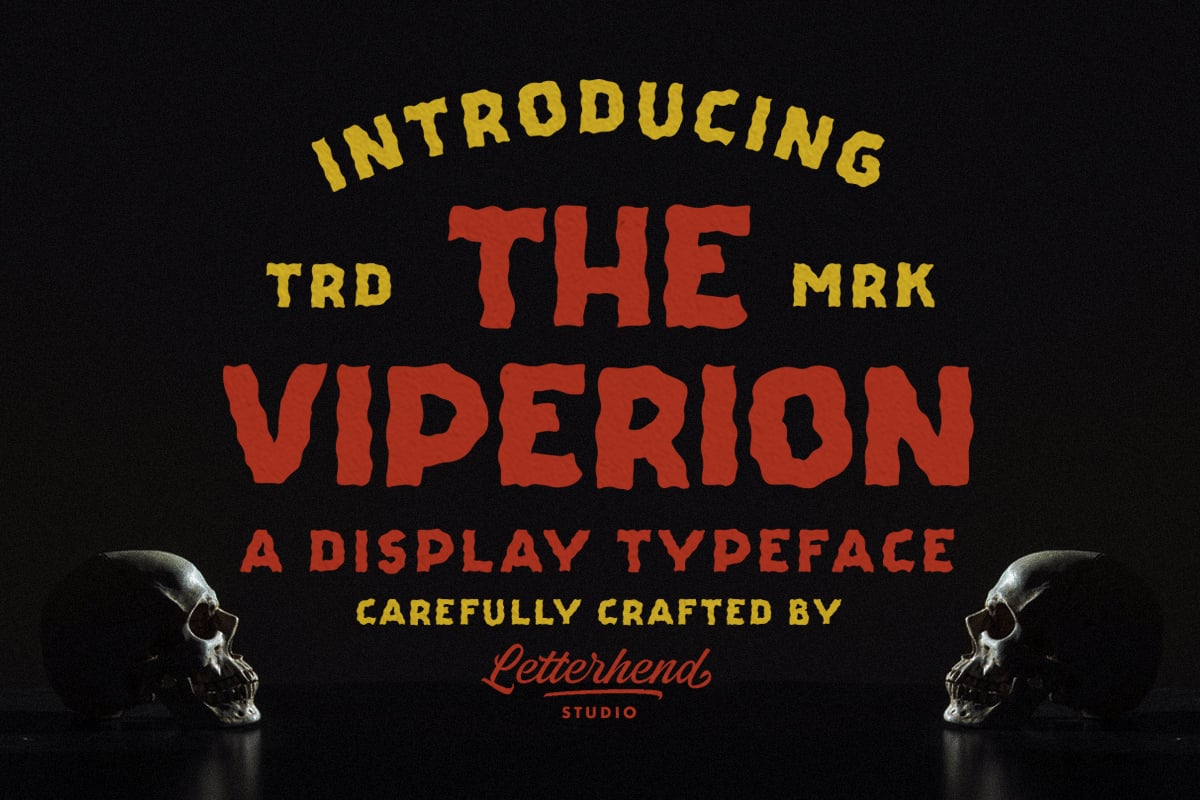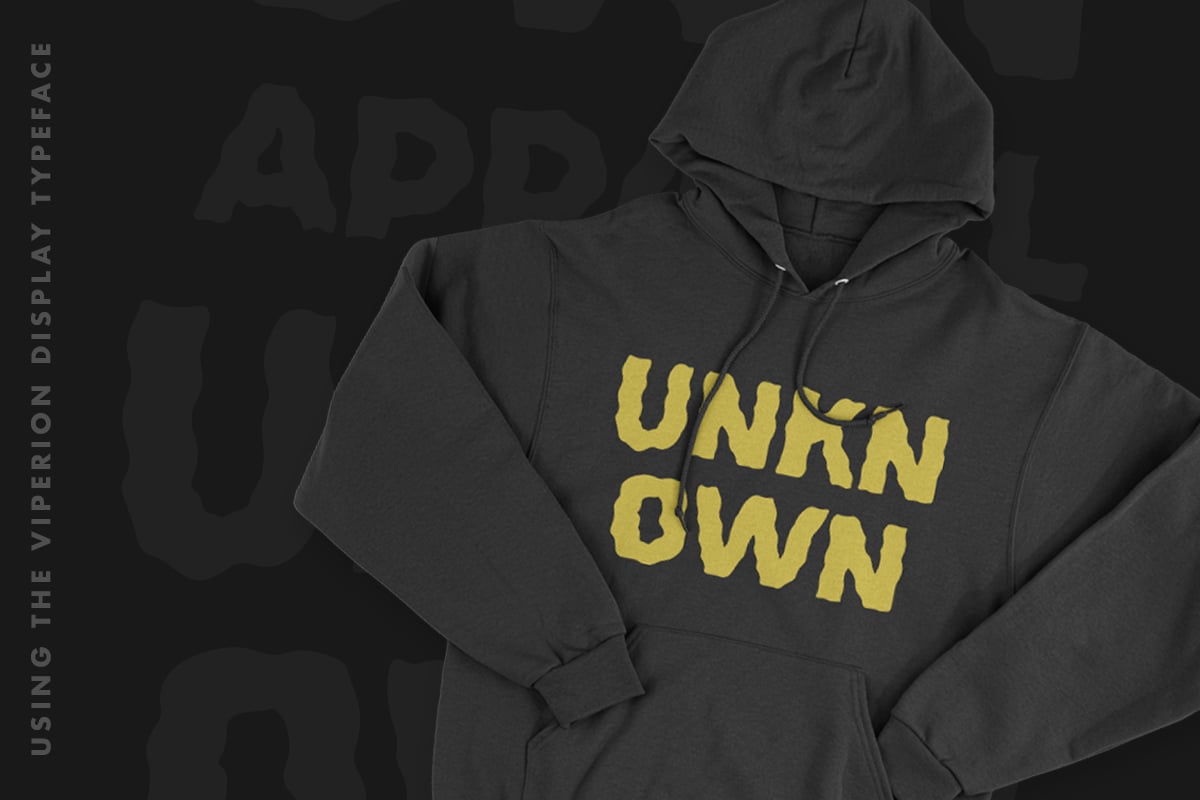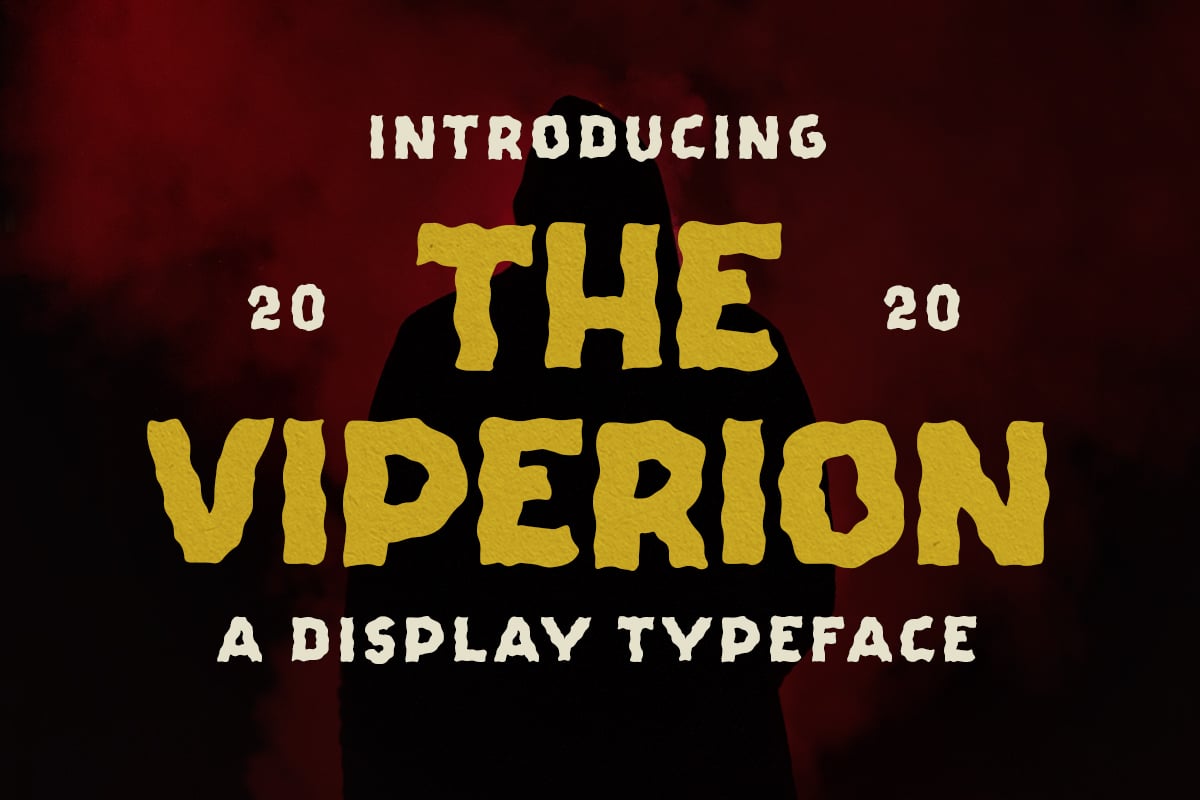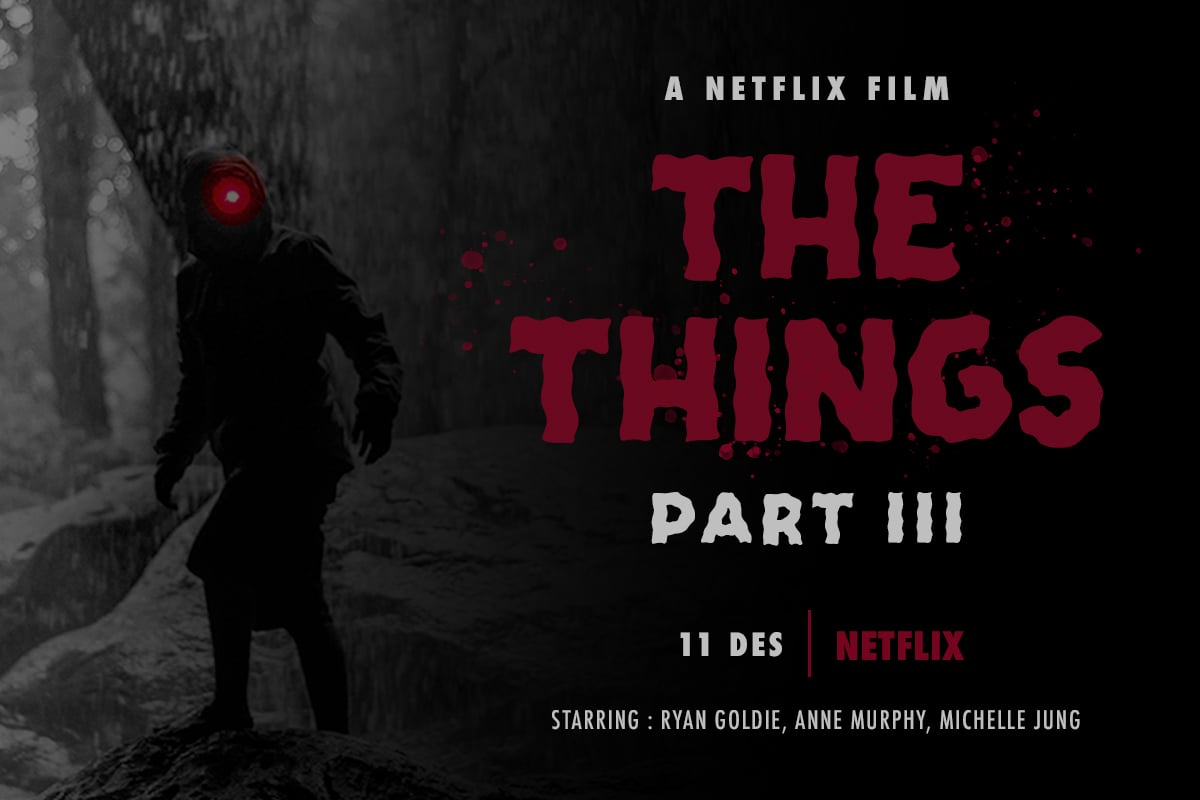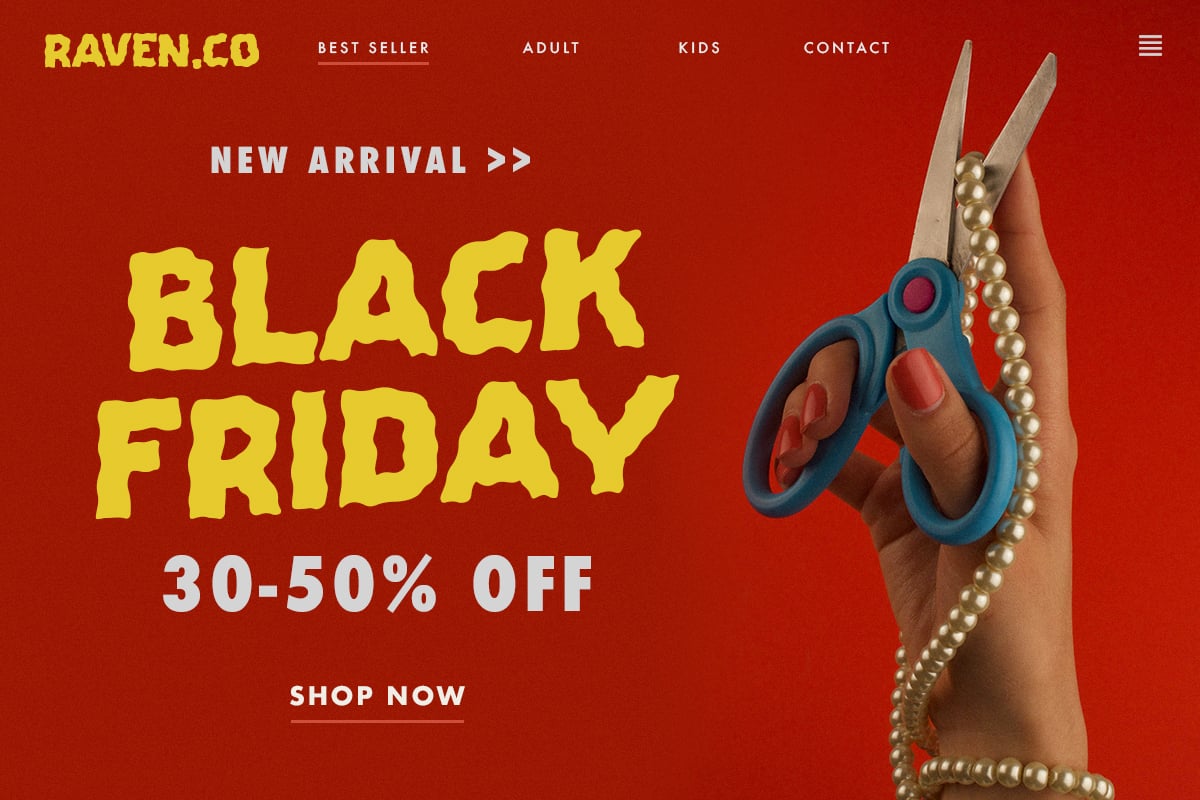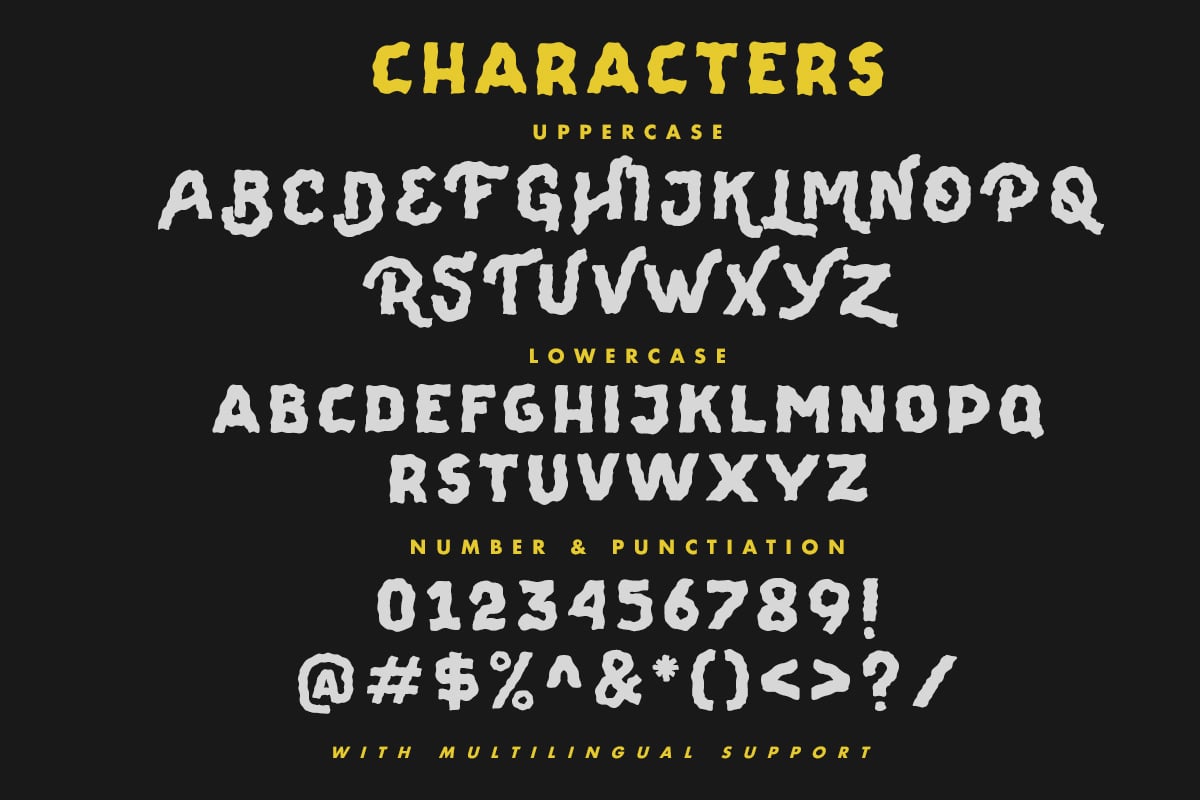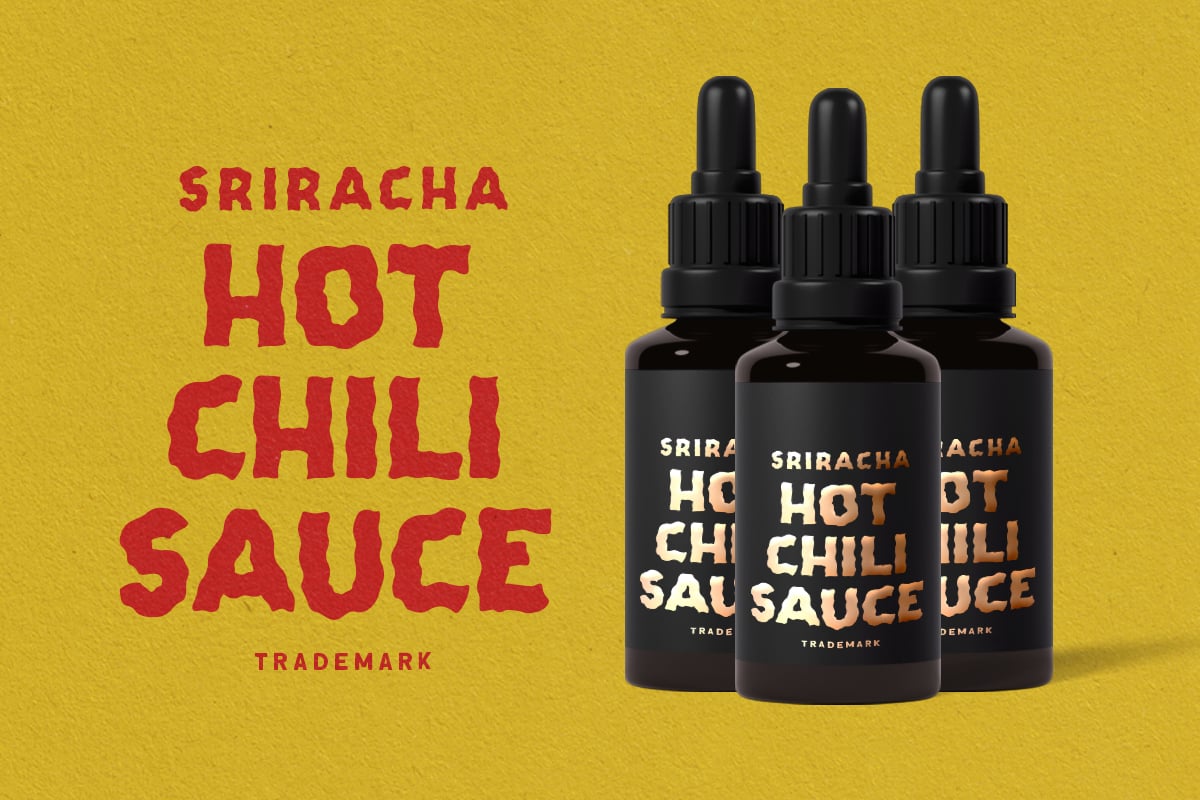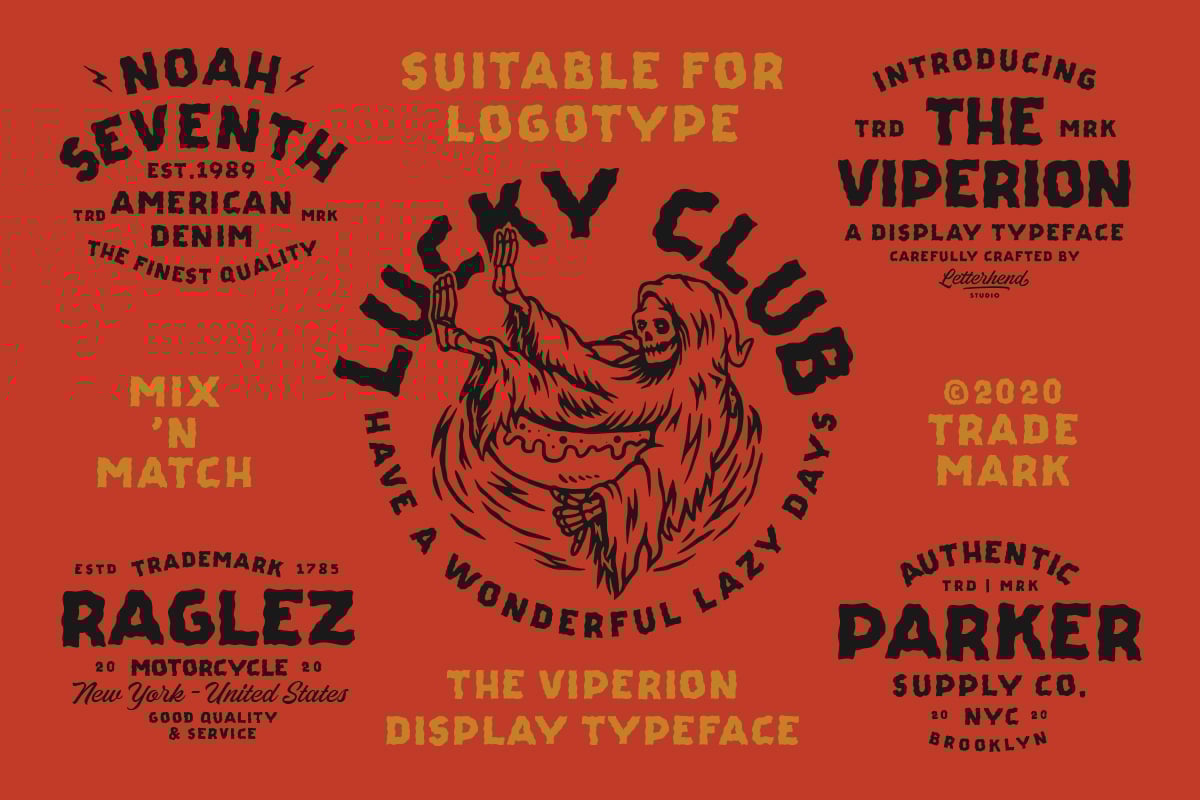
The Viperion – Display Typeface
Introducing, The Viperion – A display typeface font with bold and unusual form. This font has unique shape, very suitable for horror, thriller and spooky theme design. This font also perfectly made to be applied especially in logo, and the other various formal forms such as invitations, labels, logos, magazines, books, novels, labels or any type of advertising purpose.
- uppercase and lowercase
- numbers and punctuation
- multilingual